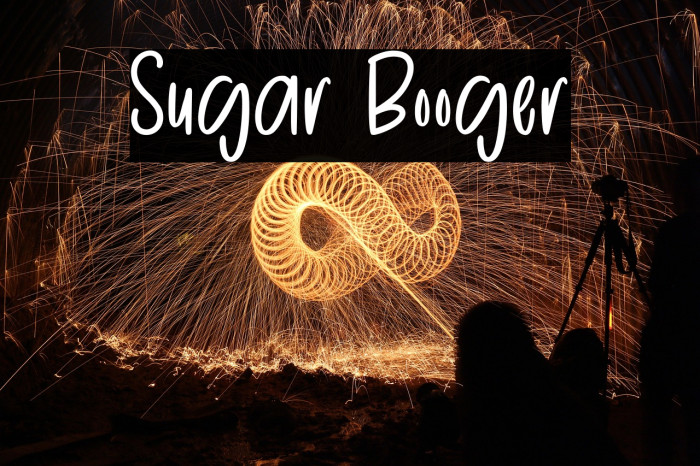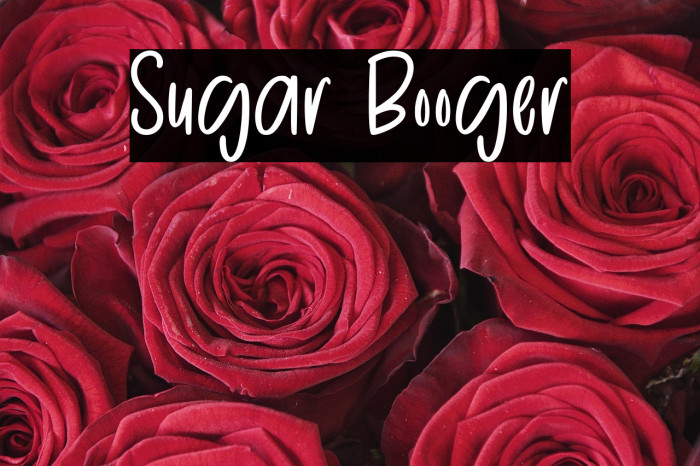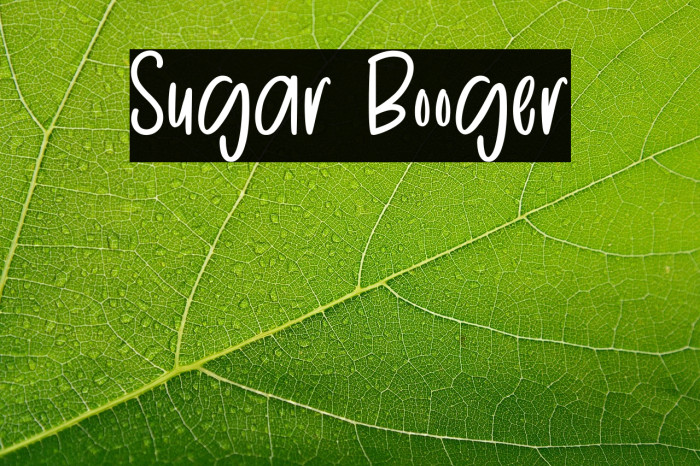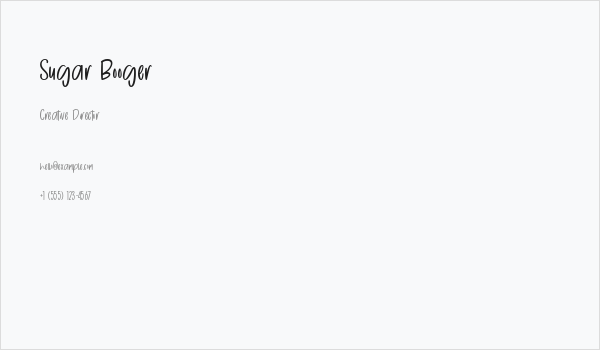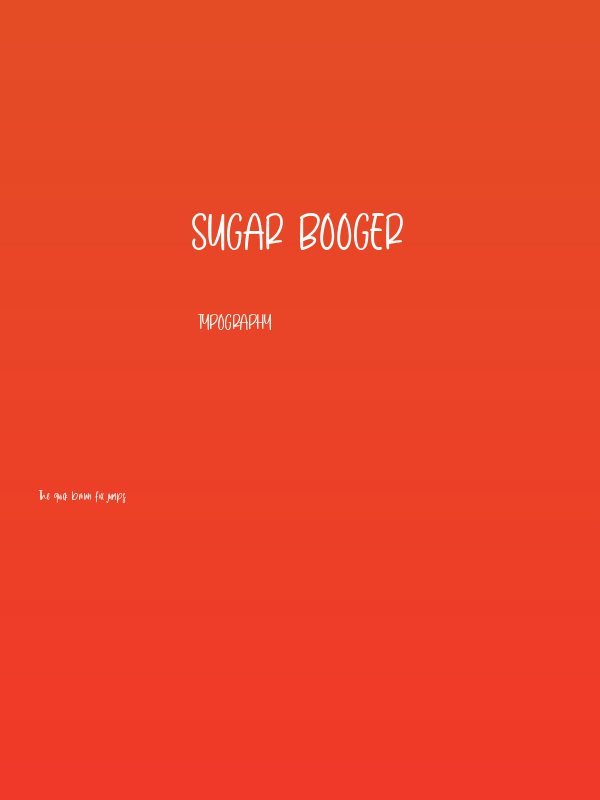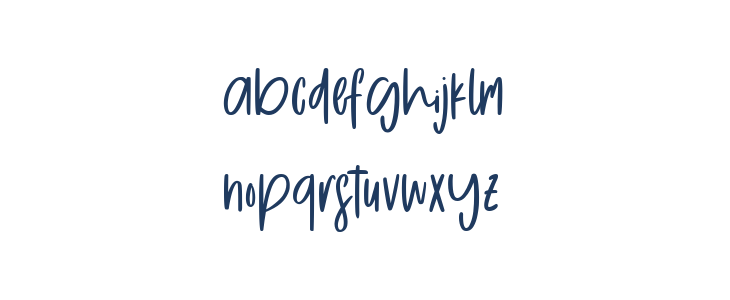
Sugar Booger Font
Sugar Booger Description
This playful and whimsical font features a handwritten style with a casual, friendly appearance. The letters are slightly slanted, giving it an informal and approachable feel. The strokes are consistent in thickness, providing a uniform look across all characters. The uppercase letters are bold and prominent, while the lowercase letters maintain a smooth flow with rounded edges. The numerals and special characters are designed to match the overall style, making them easy to read and visually appealing. This font is perfect for projects that require a personal touch or a fun, lighthearted vibe.
| Proposed Projects | Ideal for greeting cards, invitations, children's books, and playful branding. |